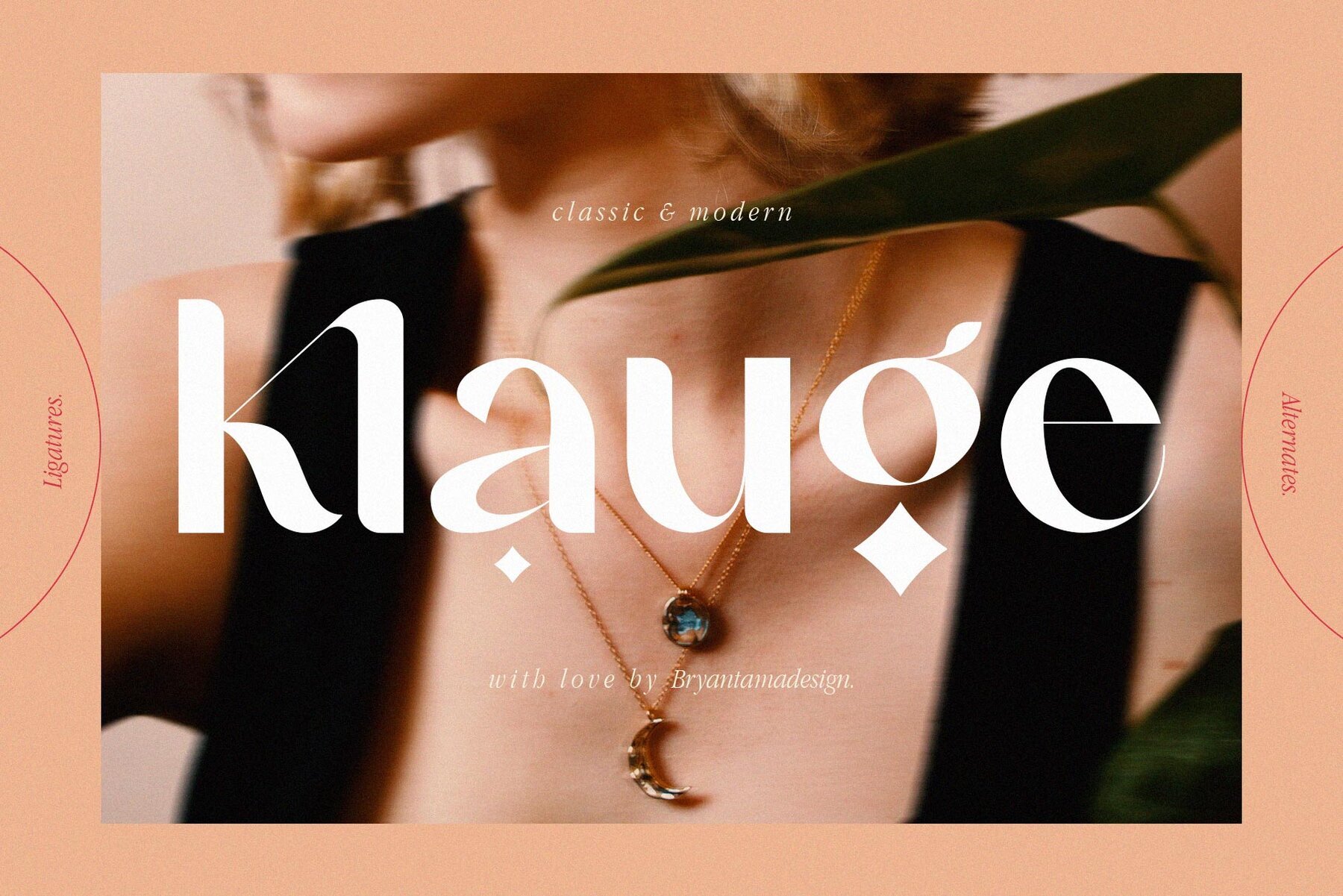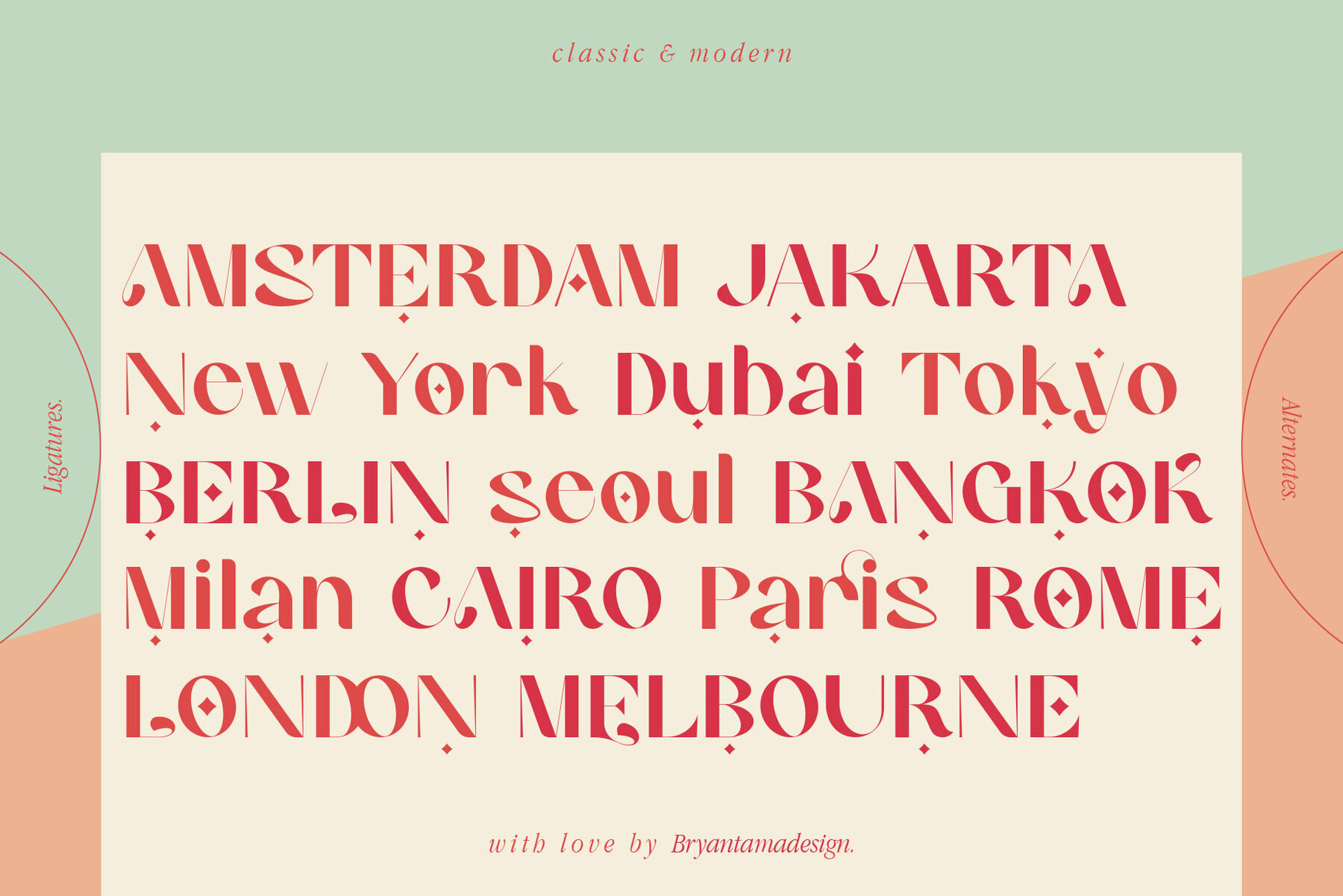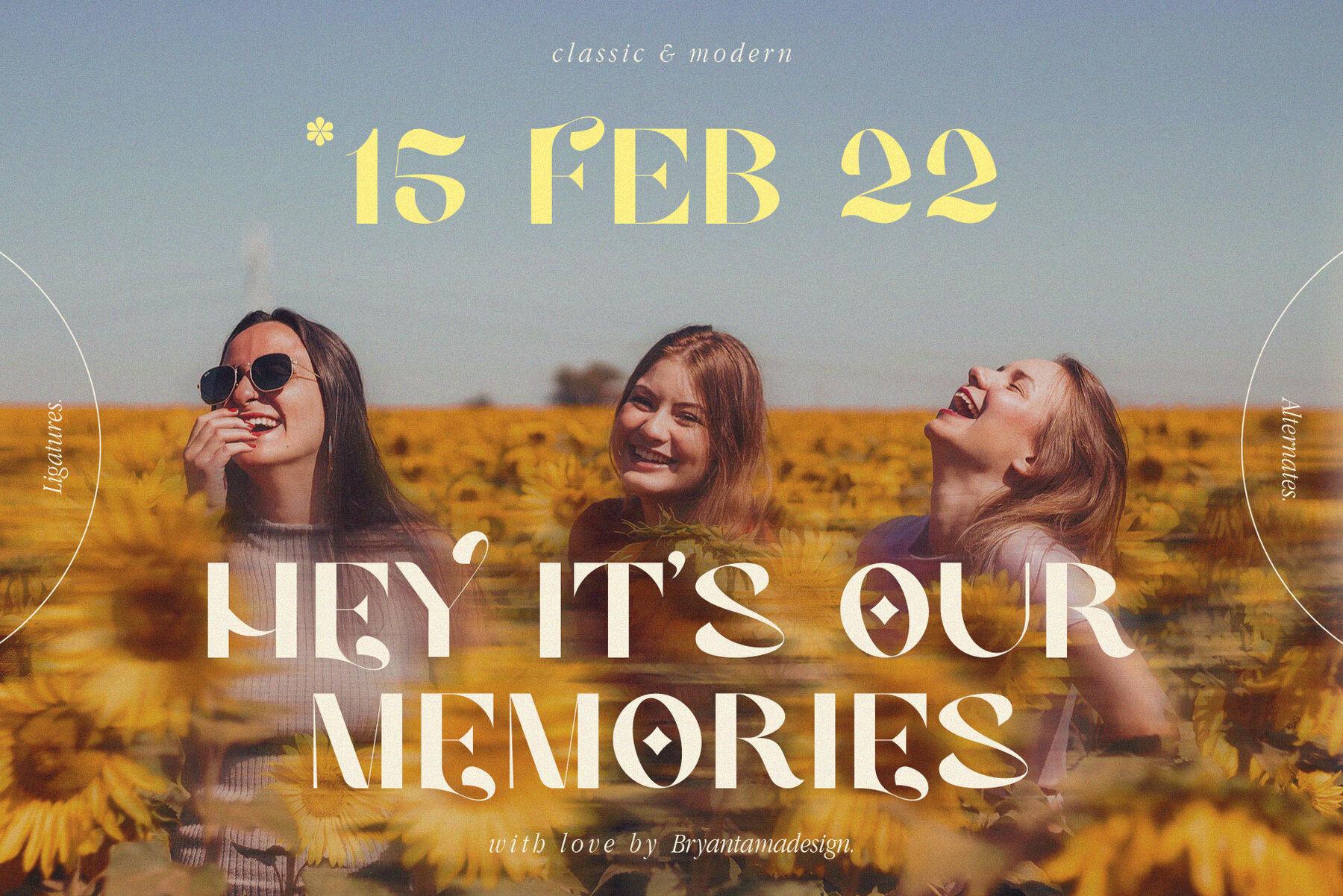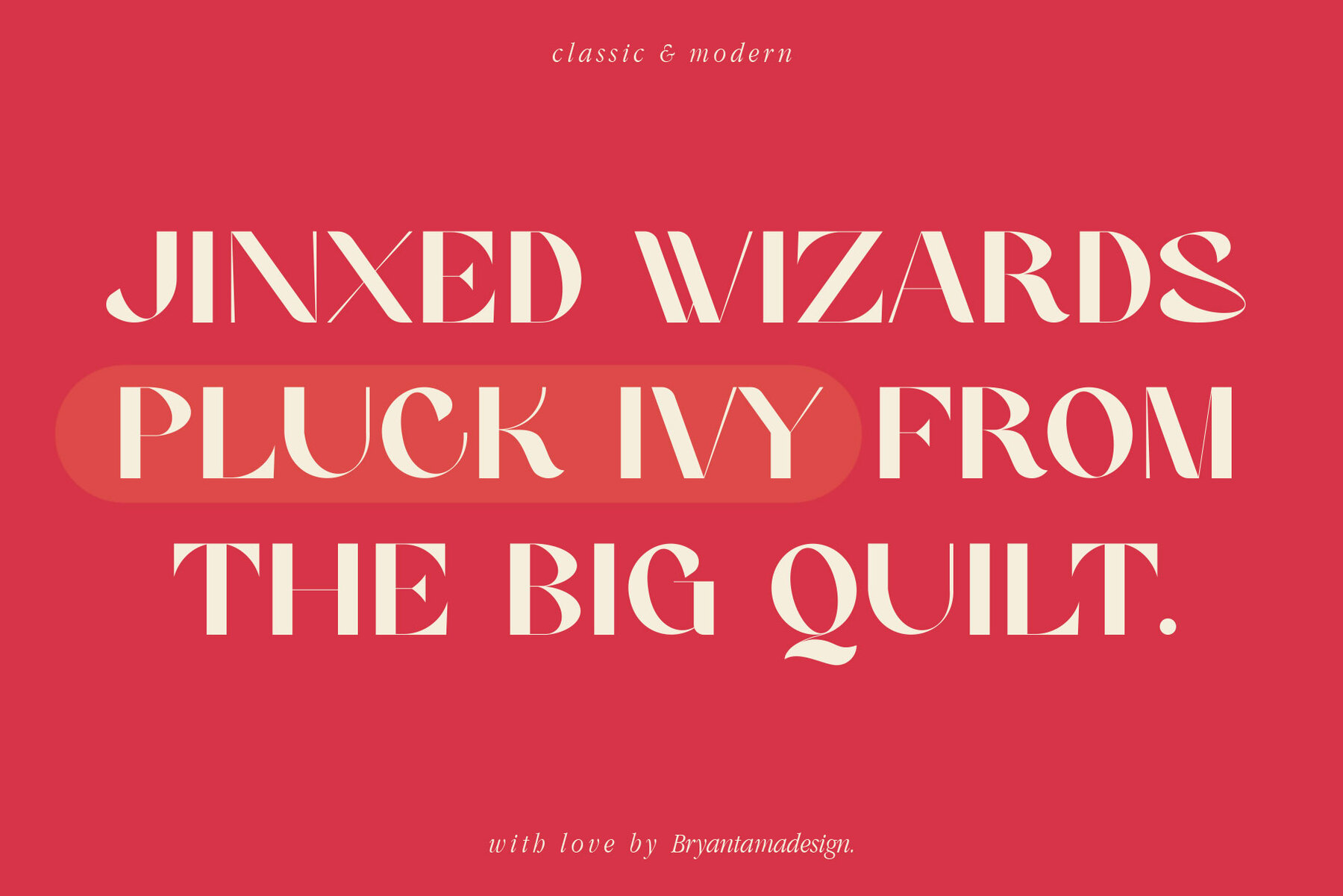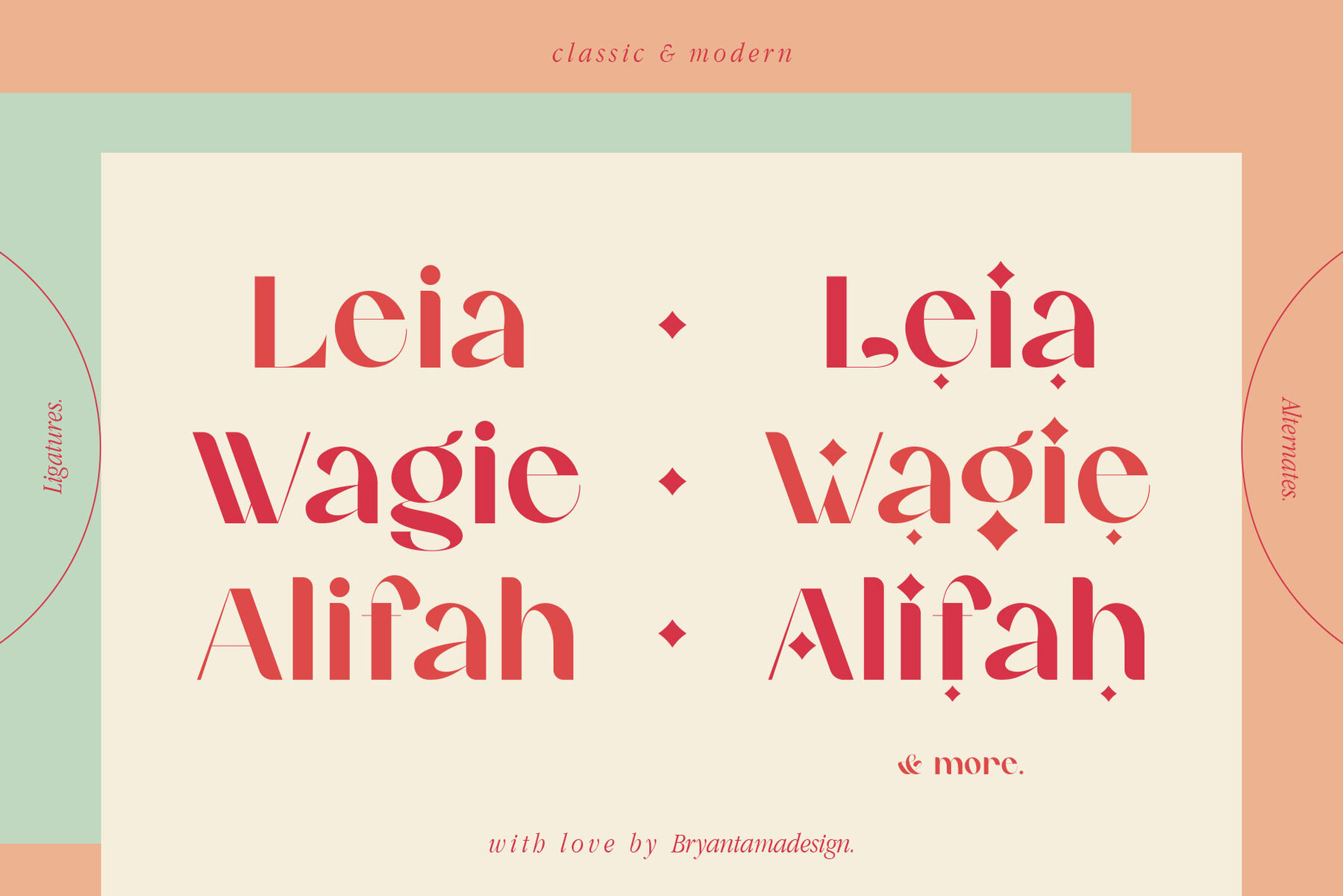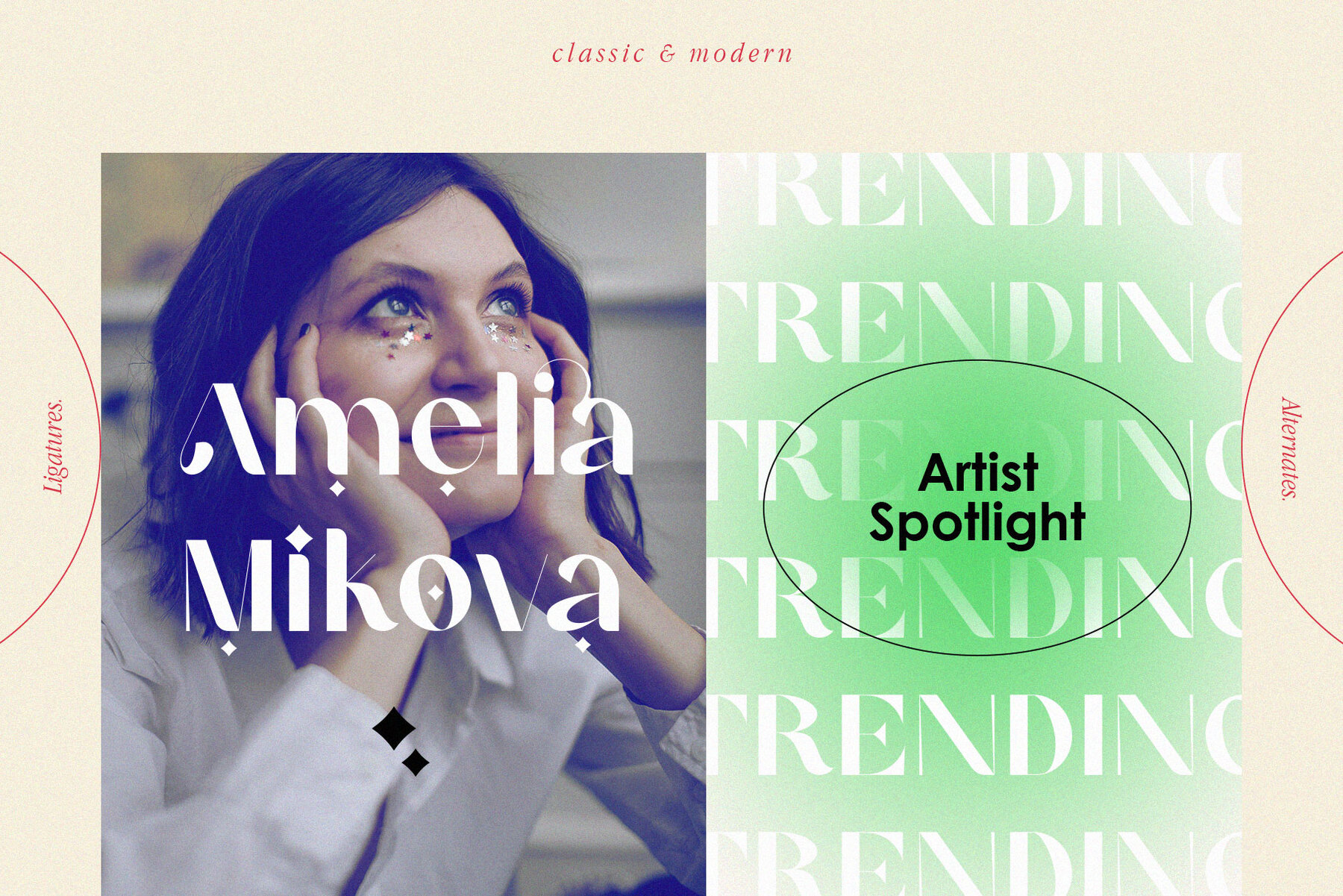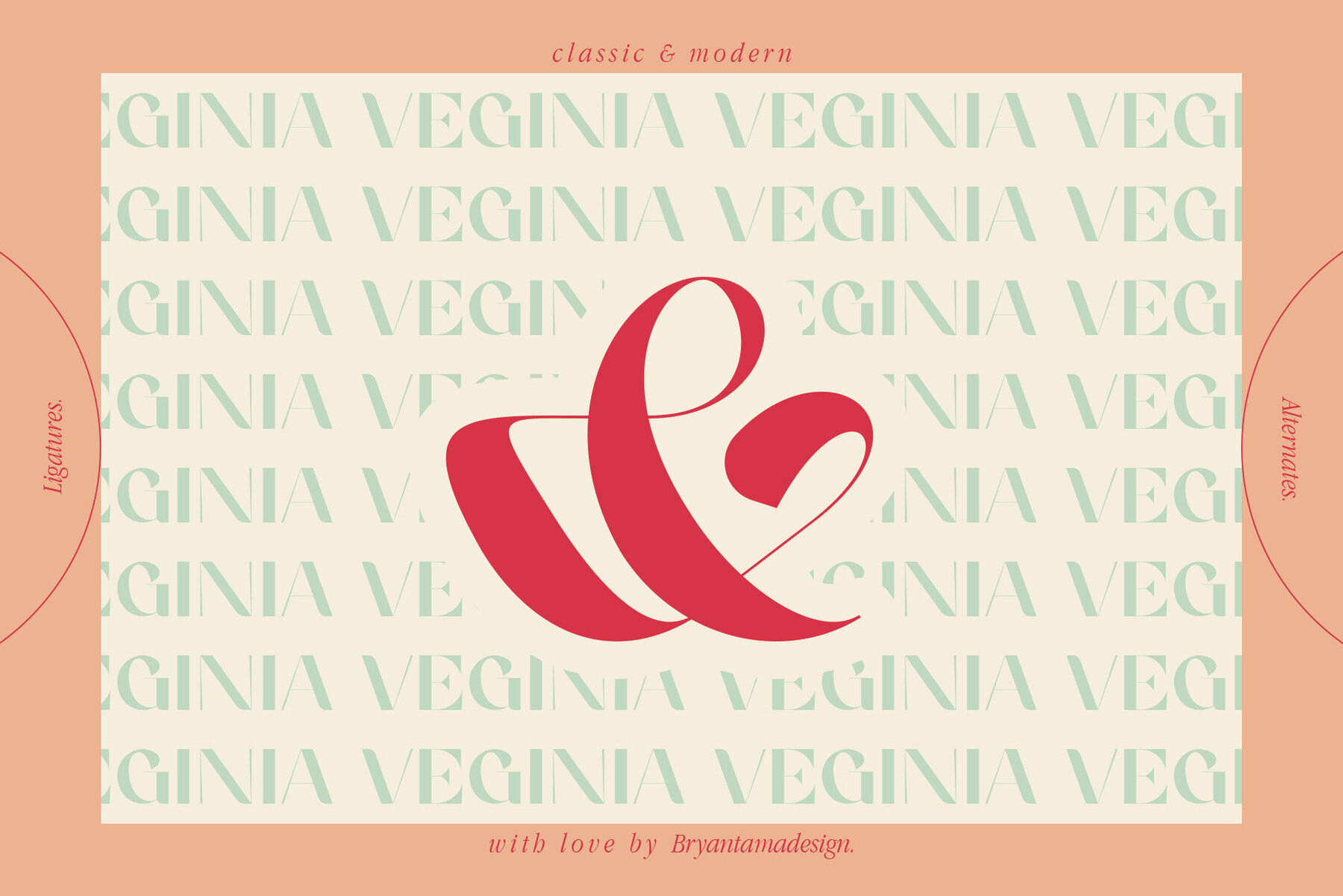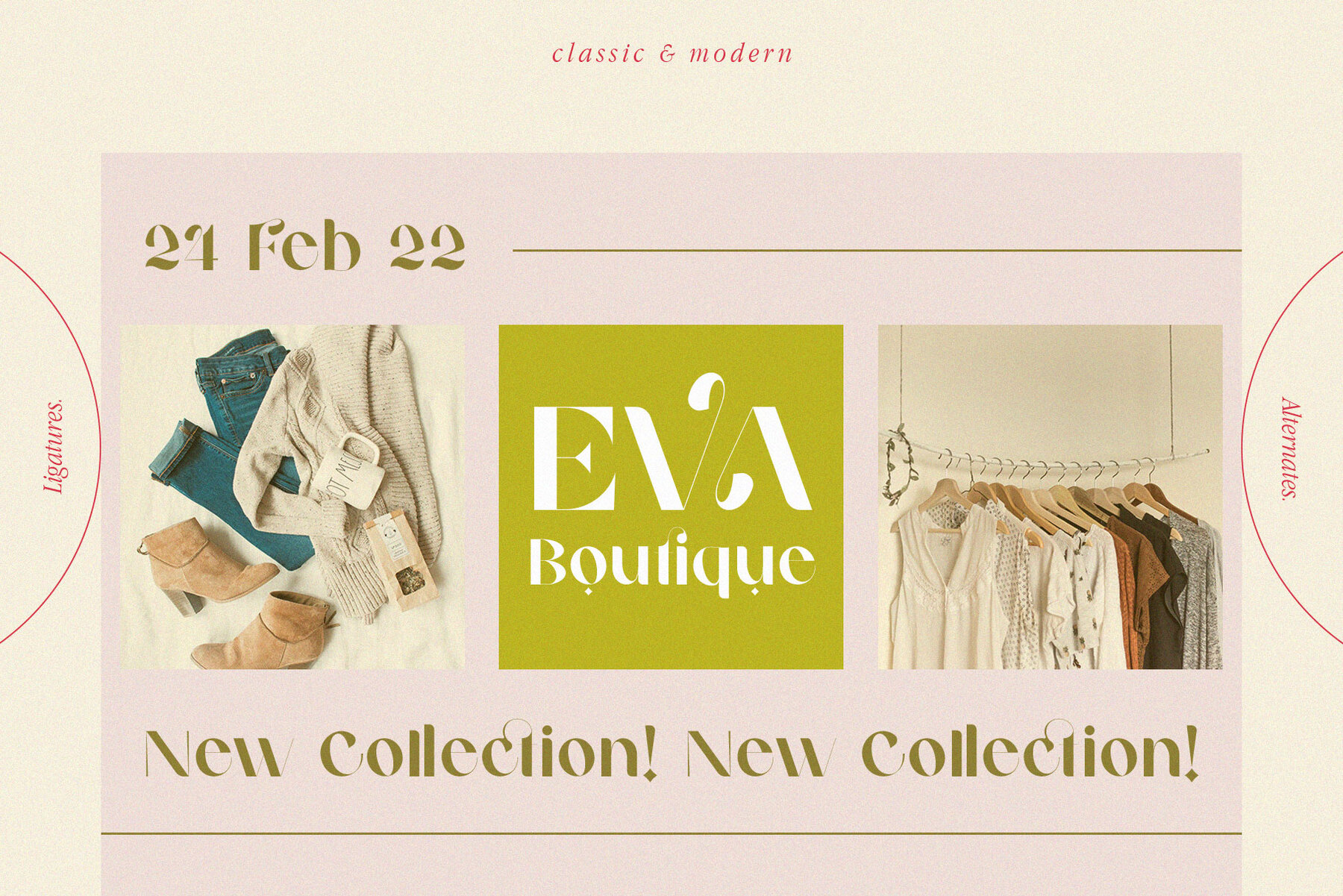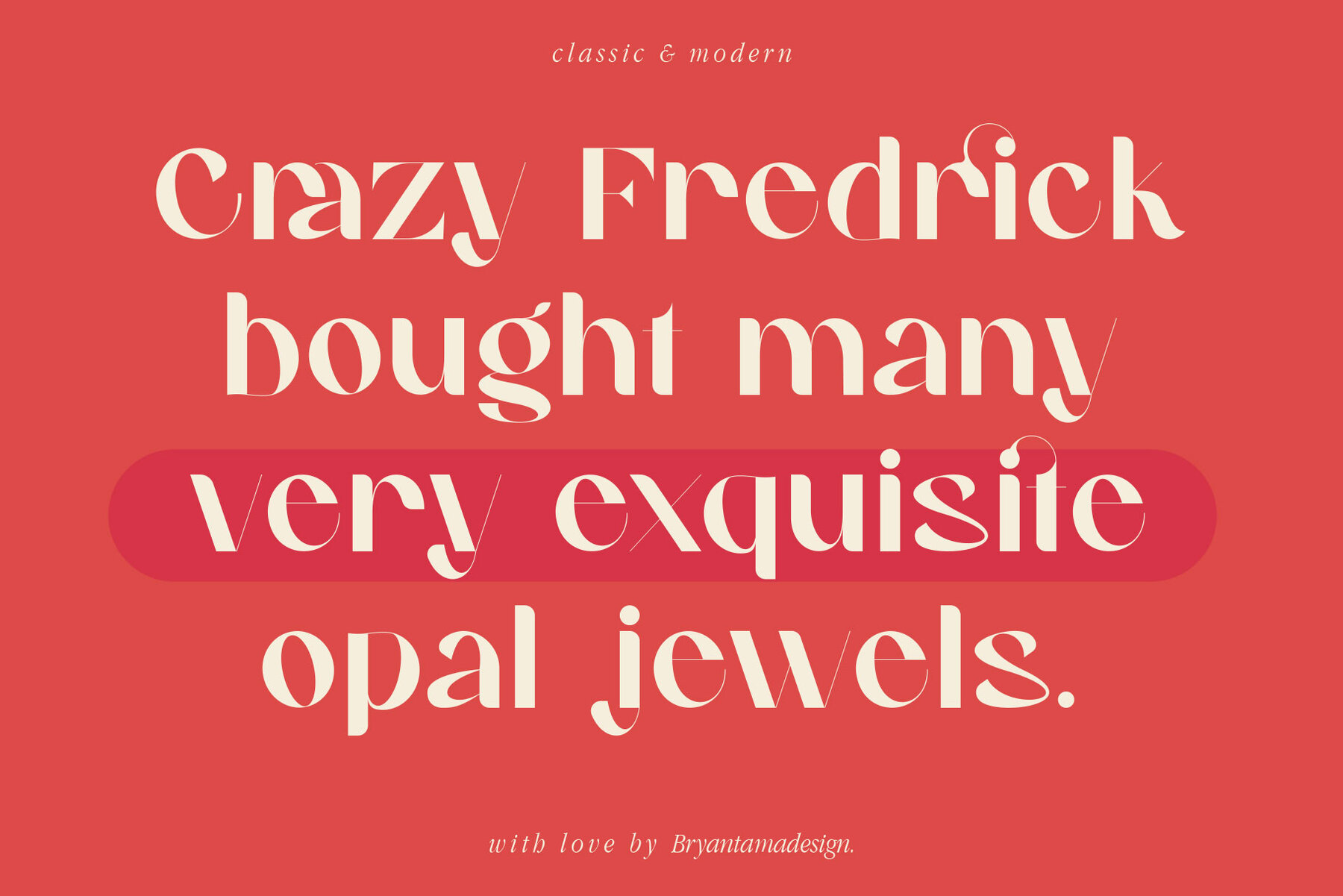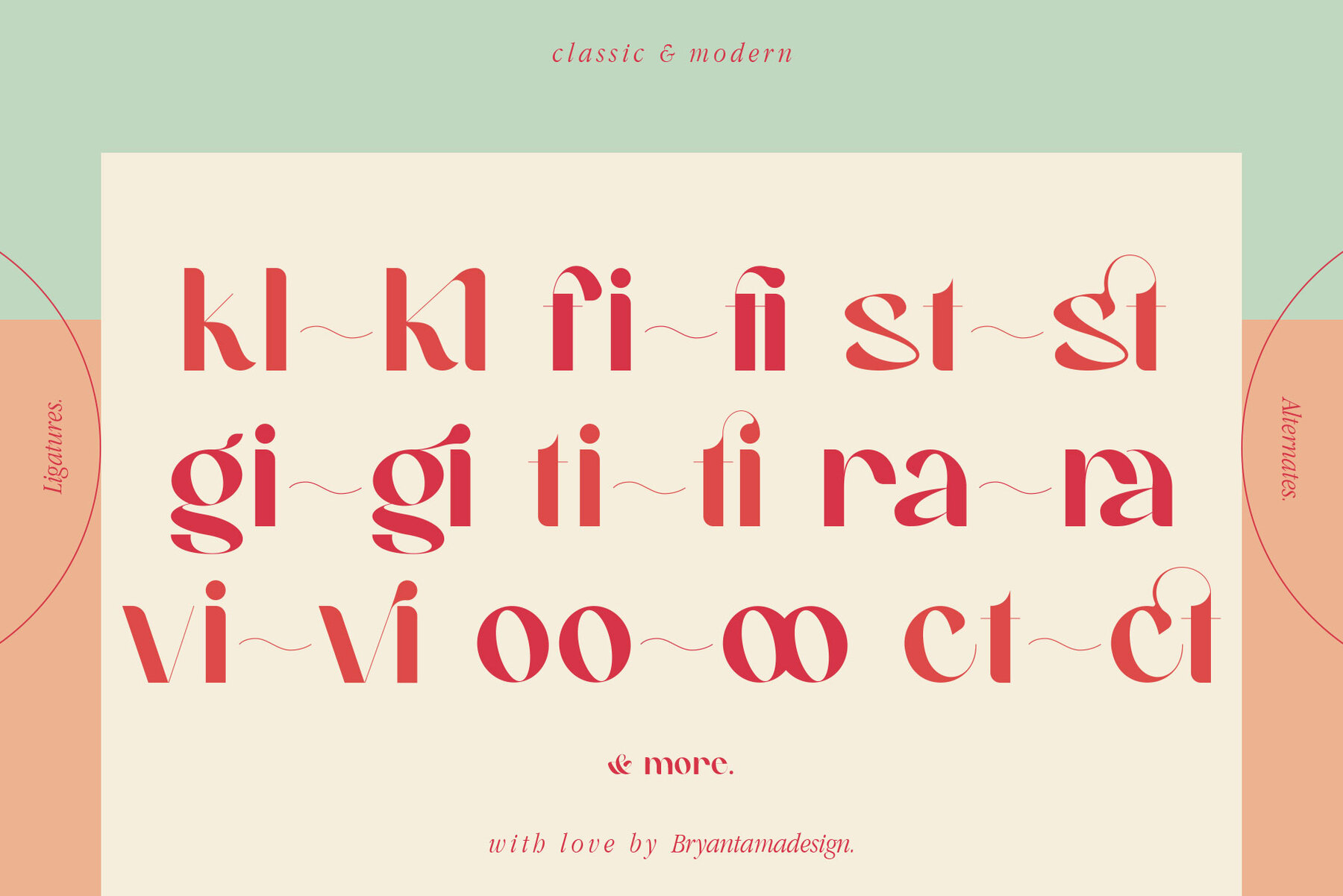
Klauge Font
Klauge
Klauge is a font that will add some flair to your design projects. Inspired by the classic and modern, you can use it for branding or social media with its magical feel - perfect in any project!